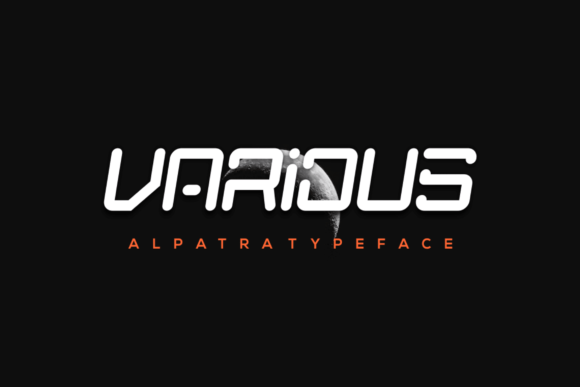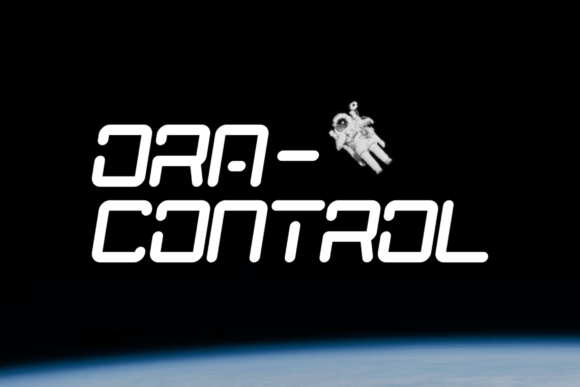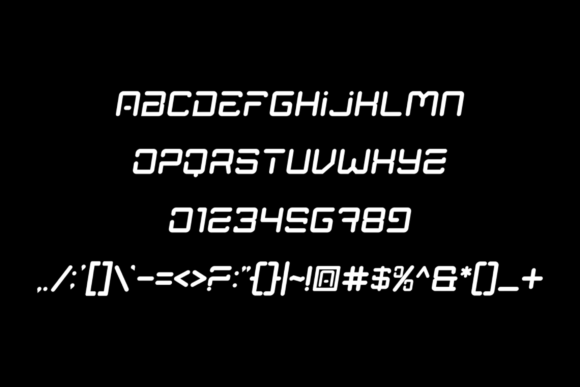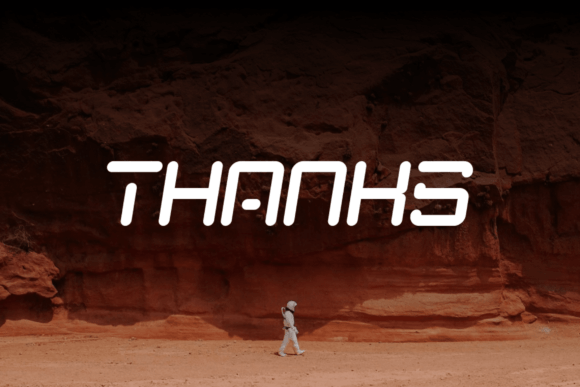
The Alpatra Font: A Game-Changer for Creative Projects
I’ll never forget the struggle I faced while working on a project for a tech startup. My client wanted a font that was modern, edgy, and would make their brand stand out. I scoured the internet, tried countless fonts, but nothing seemed to fit the bill. That was until I stumbled upon Alpatra – a cool, techno display font that instantly caught my attention. In this article, I’ll share my experience with Alpatra, its features, and how you can make the most of it in your creative projects.
An Honest Review of Alpatra
Here’s what I love about Alpatra:
- ✨ Unique and Edgy Design: Alpatra’s techno-inspired design makes it perfect for projects that require a modern and bold look.
- ✅ High Versatility: This font can be used for a wide range of projects, from logos and branding to posters and social media graphics.
- 💡 Excellent Legibility: Despite its bold design, Alpatra remains highly legible, even at smaller font sizes.
However, I did notice a few quirks:
- 🤔 Limited Use for Body Text: Alpatra is best suited for display purposes. Its bold design can make body text difficult to read.
- ⚠️ Requires Careful Kerning: As with any font, kerning is crucial to ensure Alpatra looks its best. Be prepared to adjust the spacing between letters.
The Backstory of Alpatra
Alpatra was designed by a team of creatives who wanted to create a font that embodied the spirit of innovation and technology. Inspired by the curves and lines of circuit boards, the team crafted a font that is both futuristic and functional. The result is a font that is not only visually striking but also highly versatile.
| What type of projects is Alpatra best suited for? | Alpatra is ideal for projects that require a modern, edgy, and bold look, such as tech startups, product branding, and social media graphics. |
| Can I use Alpatra for body text? | While Alpatra can be used for body text, it’s best suited for display purposes. Its bold design may make body text difficult to read. |
| Does Alpatra support OpenType features? | Yes, Alpatra supports OpenType features like ligatures, stylistic alternates, and glyphs. |